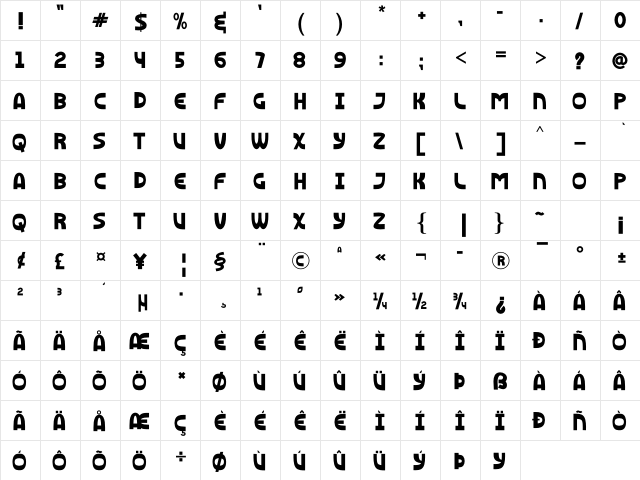
Black Chocolate Regular
| Designer | Kurnia Setyadi |
Design Context for Black Chocolate Typeface
Black Chocolate offers clean, dependable letterforms without strong stylistic allegiance, making it a practical choice for designers who need flexibility.